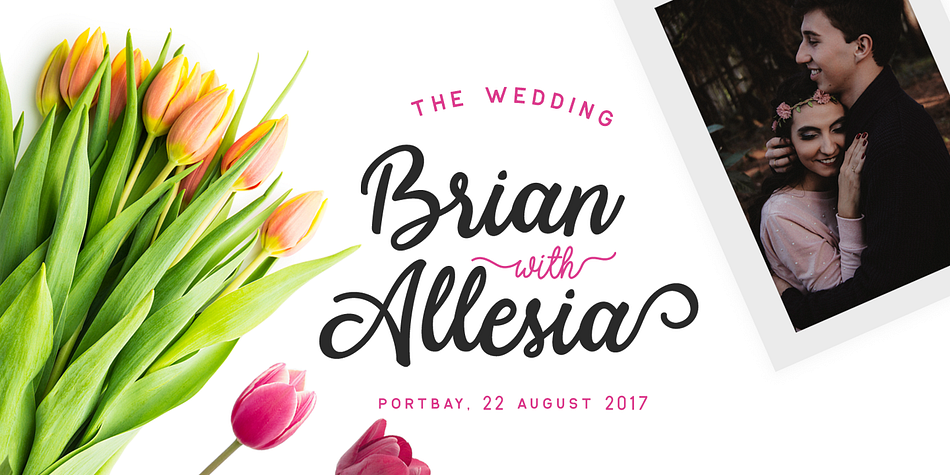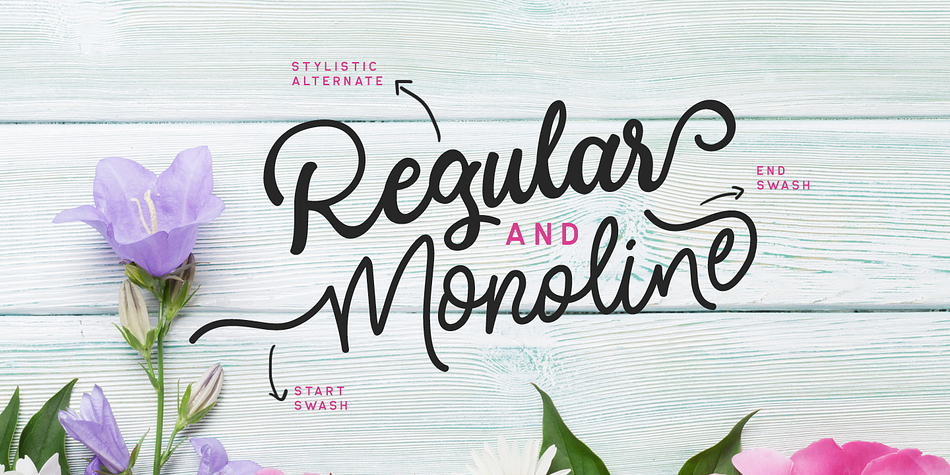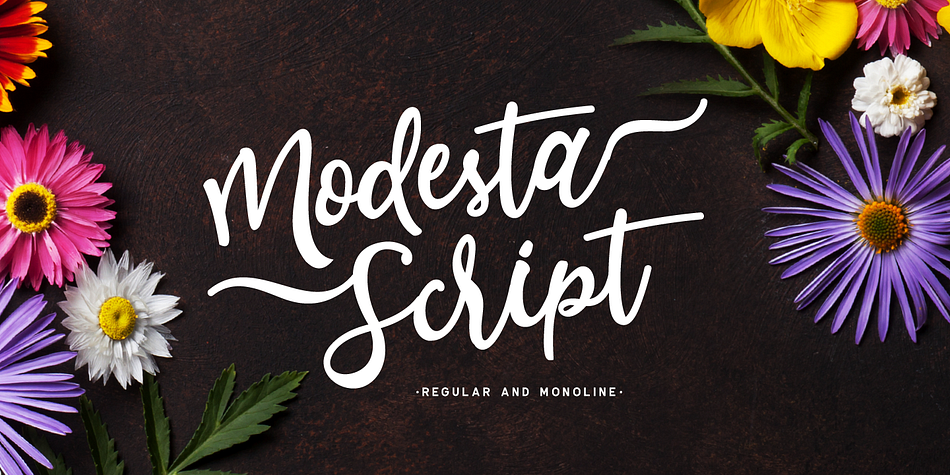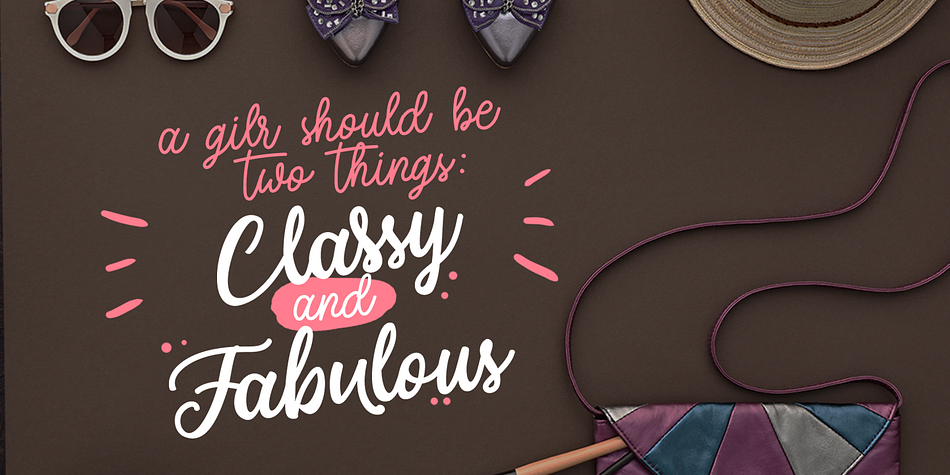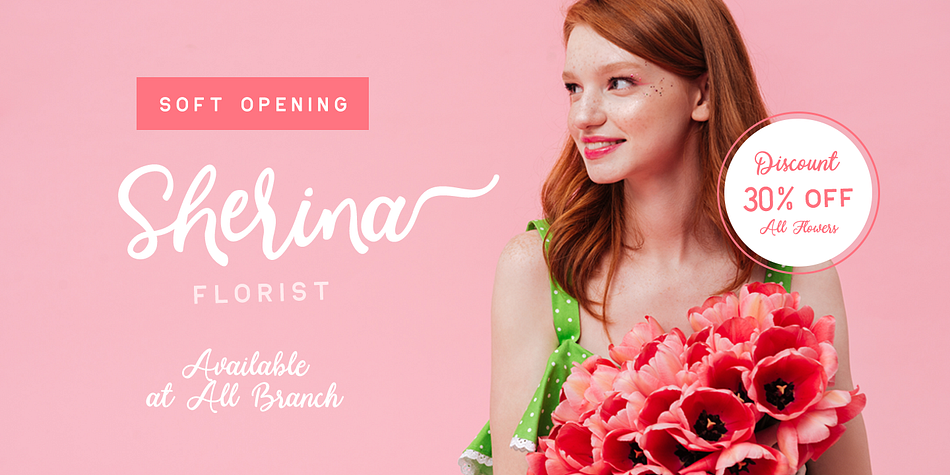
Designed by Hendry Juanda, Modesta is a script font family. This typeface has two styles and was published by Letterhend Studio.
Modesta Script is a lovely font duo script! This font has two types of style, monoline and regular. Perfect to be used for project with feminine & girly theme! You can play with the ligatures, stylistic alternate, swash, etc to create your own customized lettering. This font is also support multi language.